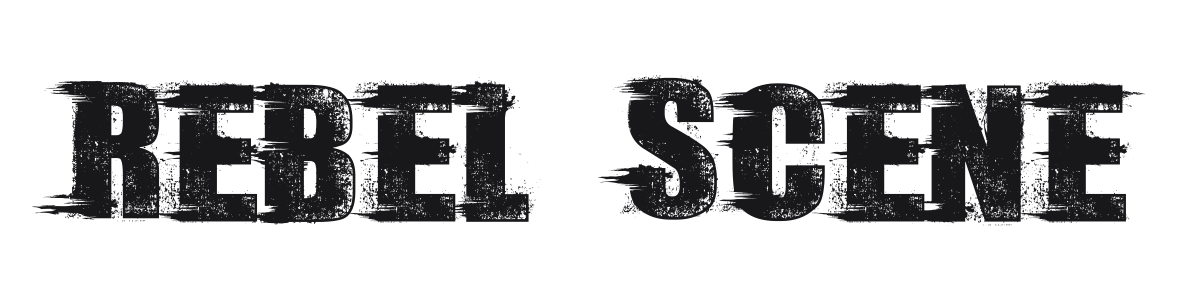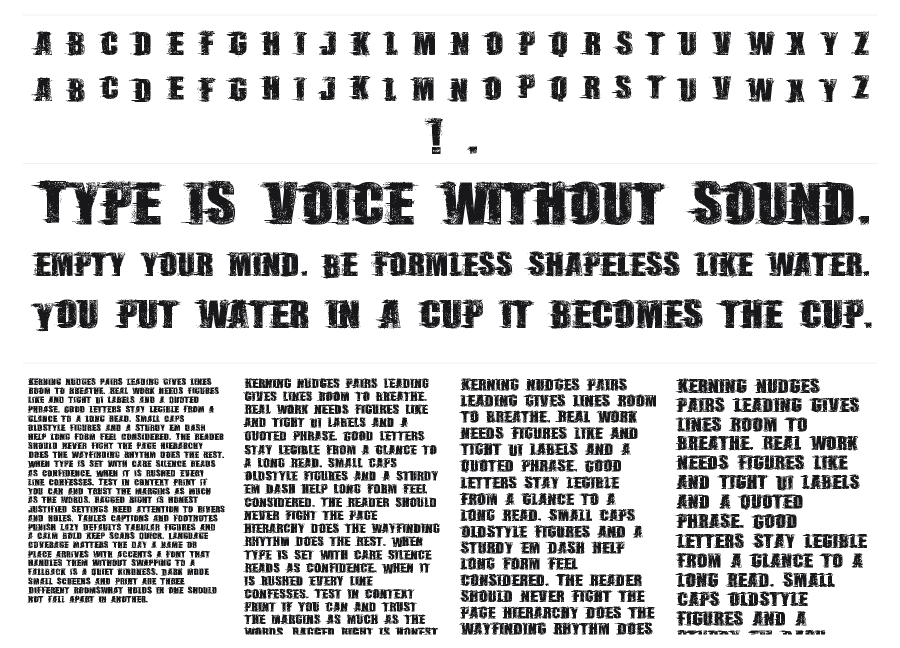
Rebel Scene
Rebel Scene is a heavy distressed display font built on a bold sans-serif skeleton buried under layers of texture, erosion, and ink noise. Every character looks like it was dragged through concrete, screen-printed on a bad day, or pulled from a decaying wall. That rawness makes it a natural choice for band merchandise, protest posters, streetwear branding, or anything that needs to look like it means business.